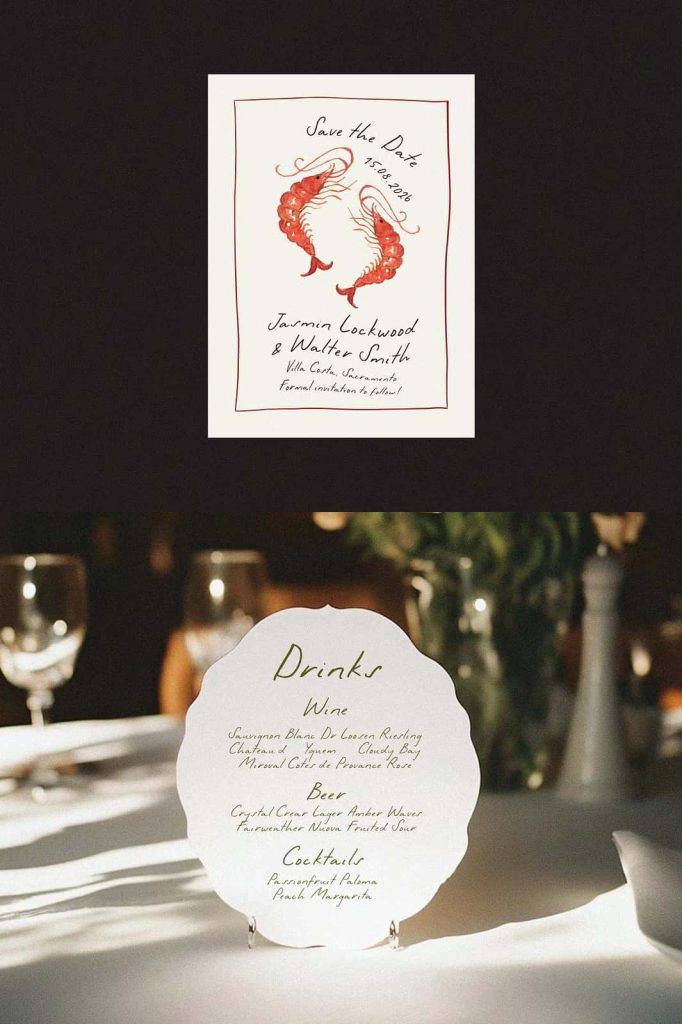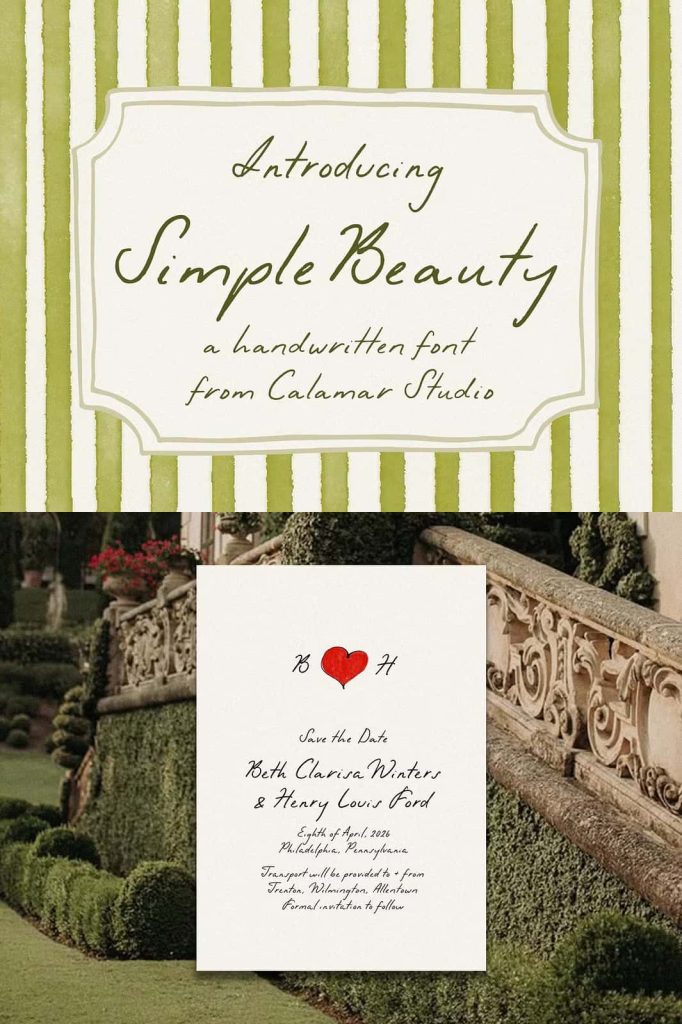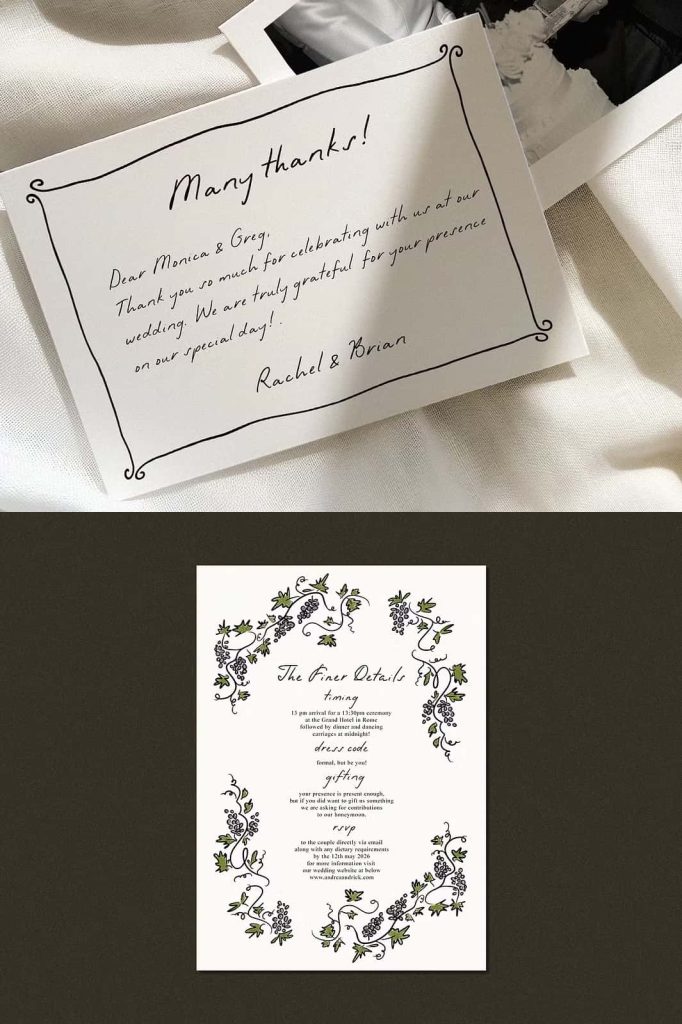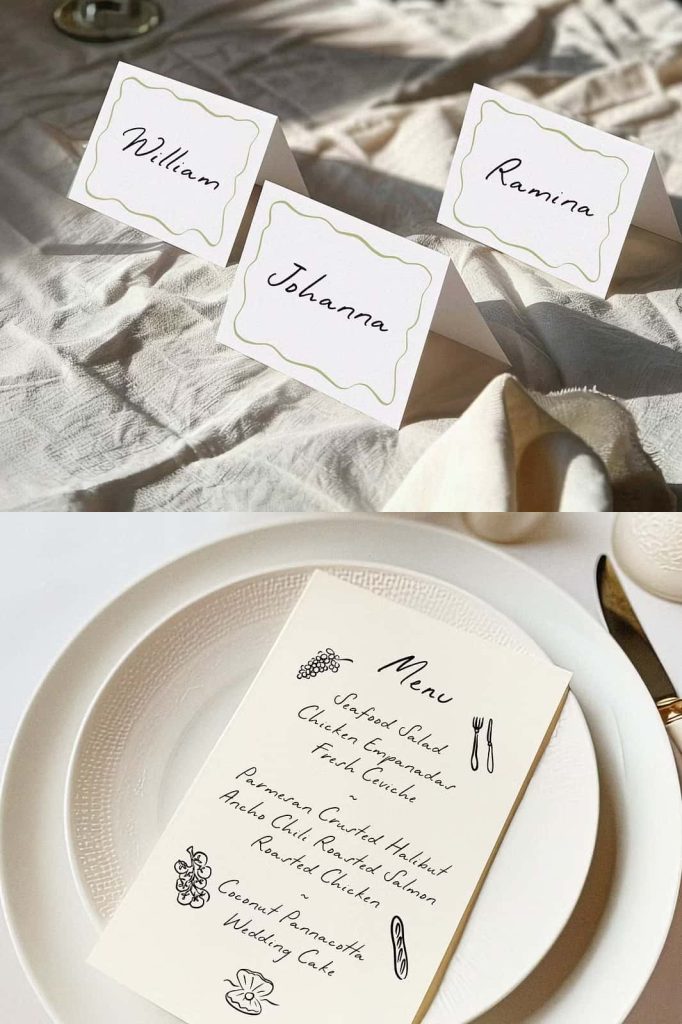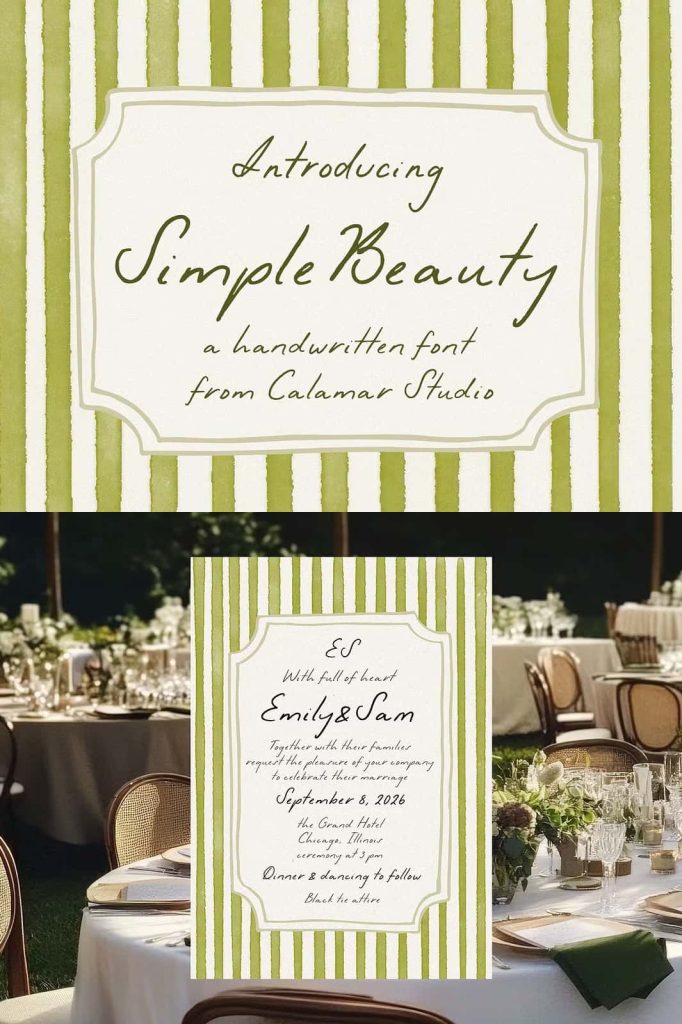
Simple Beauty | Handwritten Font
Simple Beauty Realistic Handwriting Font
Simple Beauty introduces a natural and expressive handwriting font that captures the essence of real pen-to-paper writing. This typeface delivers a relaxed and unpretentious style, allowing designers to create visuals that feel personal, warm, and authentic. With its carefully crafted letterforms and organic flow, Simple Beauty transforms ordinary text into a meaningful design element that connects with audiences on a deeper level.
The font reflects the subtle imperfections and fluid movement of genuine handwriting. These details create a human touch that digital fonts often lack, making every composition feel more sincere and engaging. Simple Beauty empowers designers to communicate messages with clarity while maintaining a soft and approachable tone.
Authentic Handwriting with Natural Flow
Simple Beauty stands out by replicating the rhythm and variation of real handwriting. Each character flows smoothly into the next, creating a cohesive and effortless appearance. The font avoids rigid structure and instead embraces natural movement, giving designs a sense of spontaneity and life.
Designers can actively use this font to create content that feels genuine and relatable. The handwritten style adds personality without overwhelming the design, making it suitable for both subtle accents and more prominent typographic elements.
Designed for Warm and Personal Expression
Simple Beauty helps designers express emotions and ideas in a more intimate way. Its soft curves and balanced spacing create a comfortable reading experience while maintaining visual charm. This makes it an excellent choice for projects that aim to build emotional connections with audiences.
Perfect for Wedding and Event Stationery
Simple Beauty enhances wedding stationery with elegance and warmth. Its handwritten style adds a personal touch that feels intimate and meaningful, making it ideal for invitations, save-the-dates, RSVP cards, and thank-you notes. The font creates a romantic atmosphere that complements special occasions.
Designers can use Simple Beauty to craft cohesive event materials that feel thoughtful and beautifully designed. Its natural flow ensures that every piece of text feels harmonious and visually appealing.
Create Memorable Invitations
With Simple Beauty, invitations become more than just informational pieces. The font adds character and charm, helping designs stand out while maintaining a refined and elegant look. It allows designers to highlight important details while preserving a soft and welcoming tone.
Enhance Branding with a Human Touch
Simple Beauty brings authenticity to branding projects by introducing a handwritten element that feels genuine and approachable. It works especially well for brands that want to communicate warmth, creativity, and individuality. The font helps businesses establish a more personal connection with their audience.
Designers can actively use Simple Beauty for logos, packaging, and marketing materials. Its natural style adds depth and uniqueness, making brands feel more relatable and memorable.
Elevate Social Media Content
Simple Beauty performs exceptionally well in social media design, where authenticity and engagement are essential. Its relaxed and natural appearance helps content stand out while maintaining a friendly and inviting tone. The font works well for quotes, captions, and promotional graphics.
By incorporating Simple Beauty into social media visuals, designers can create posts that feel more personal and engaging. This approach encourages interaction and helps build stronger connections with audiences.
Versatile Across Creative Projects
Simple Beauty adapts easily to a wide range of creative applications beyond stationery and branding. It works well for journals, blog graphics, merchandise, and lifestyle designs. Its flexibility allows designers to explore different styles while maintaining a consistent and authentic look.
Bring Warmth and Authenticity to Your Designs
Simple Beauty empowers designers to create work that feels natural, expressive, and visually appealing. Its realistic handwriting style adds depth and personality to every project, transforming simple text into a meaningful visual element.
By choosing Simple Beauty, you gain a versatile font that enhances both digital and print designs. It delivers a perfect balance of elegance and simplicity, helping you create compositions that feel genuine, inviting, and memorable.